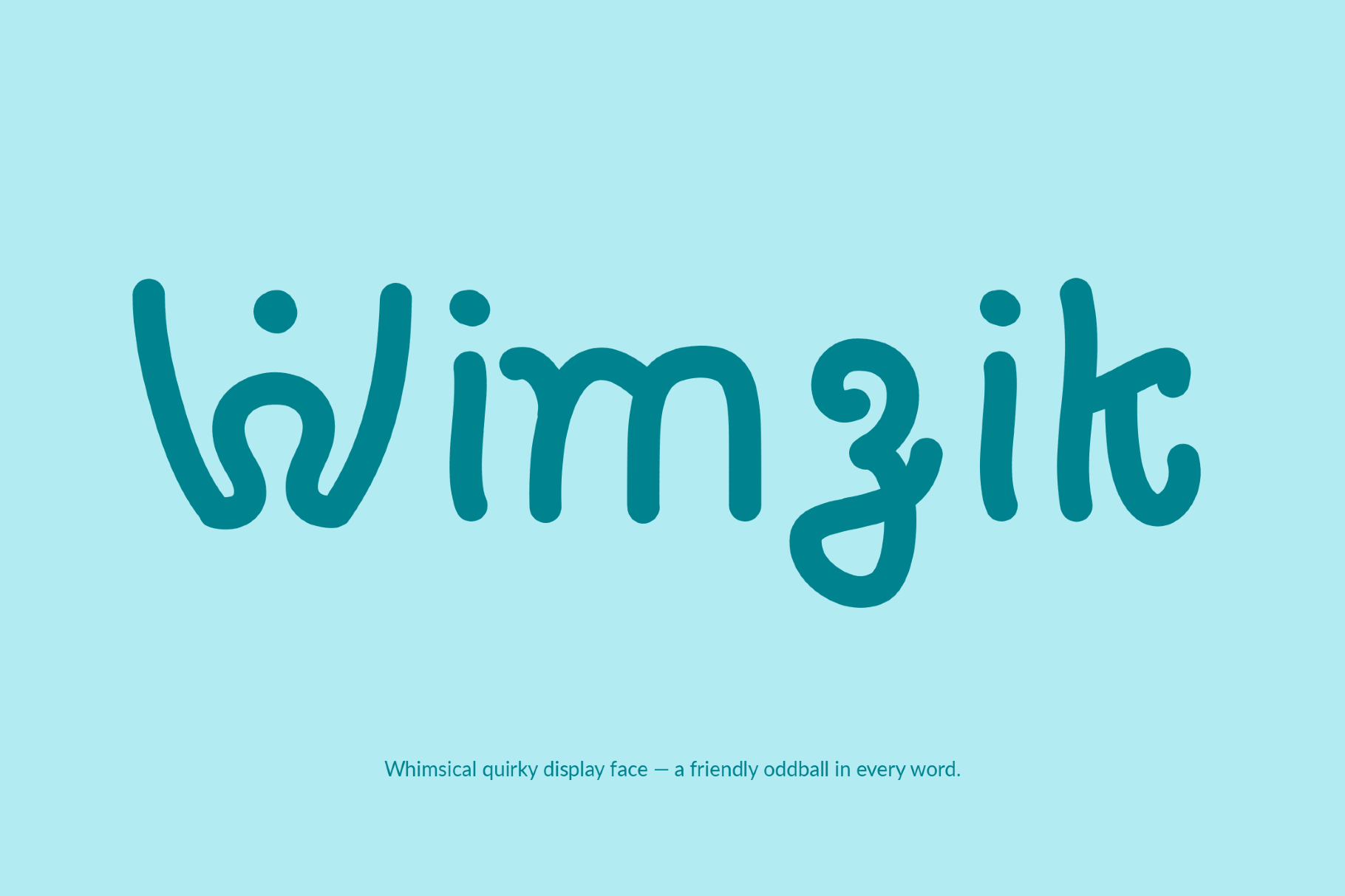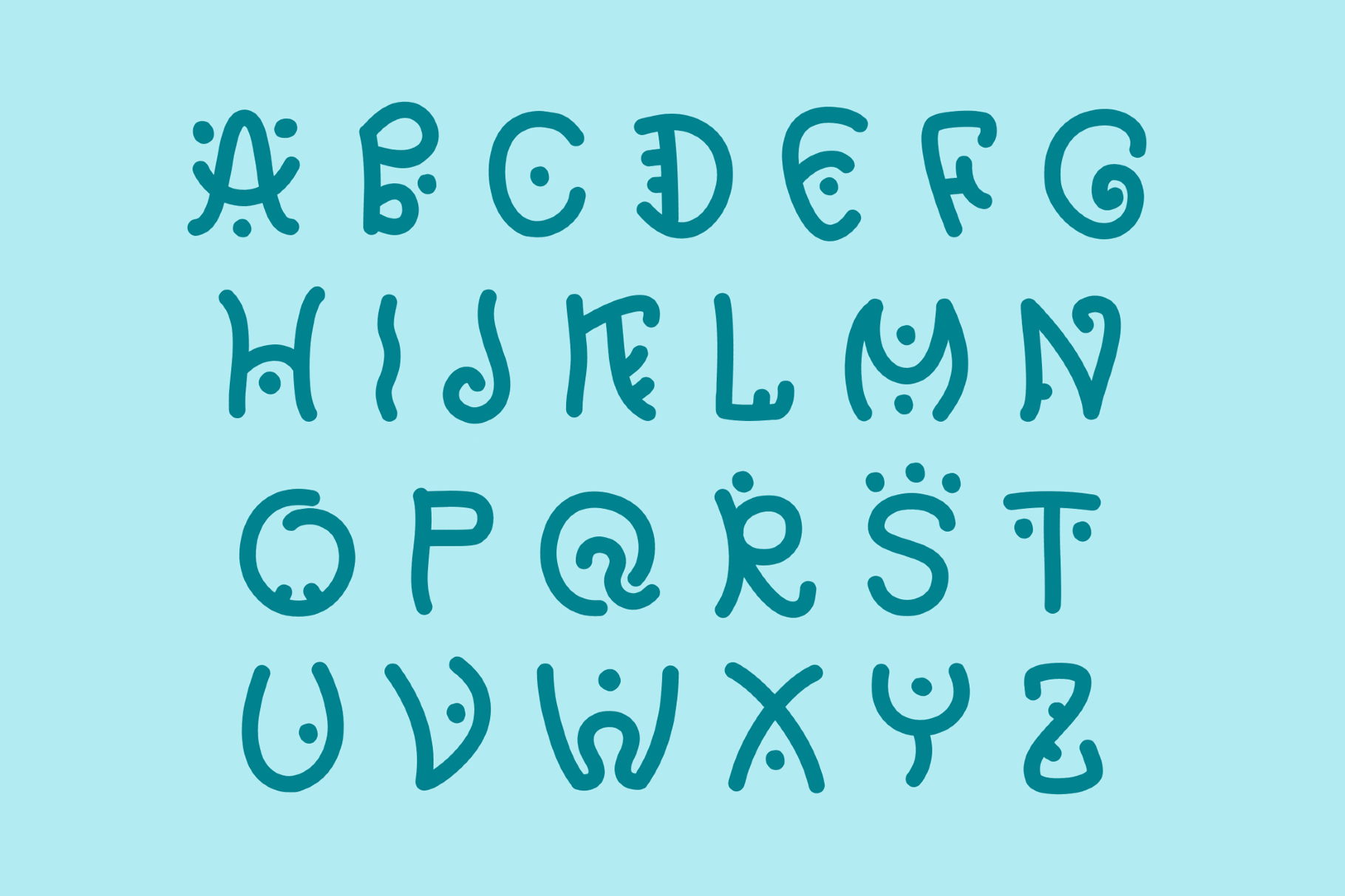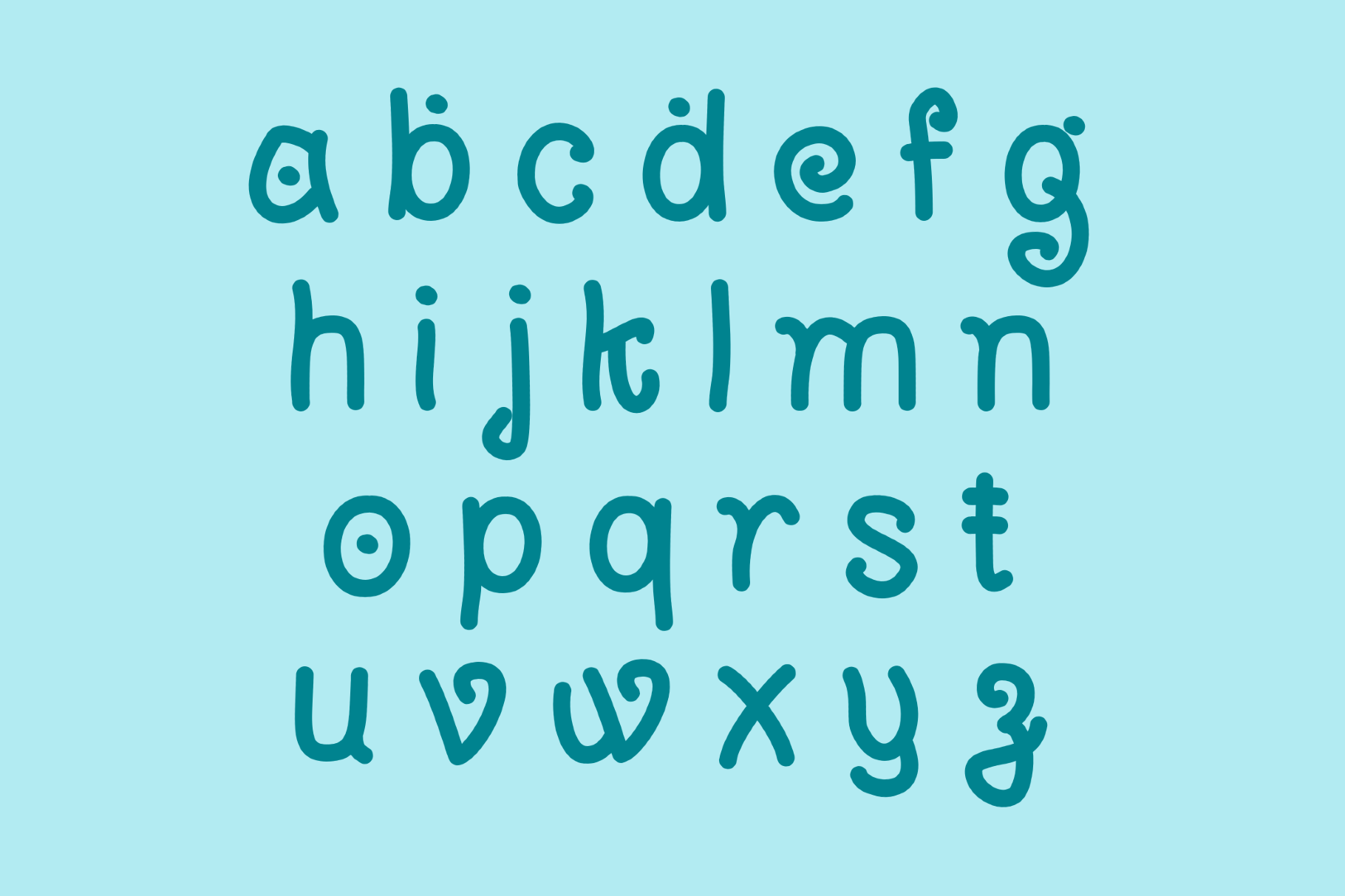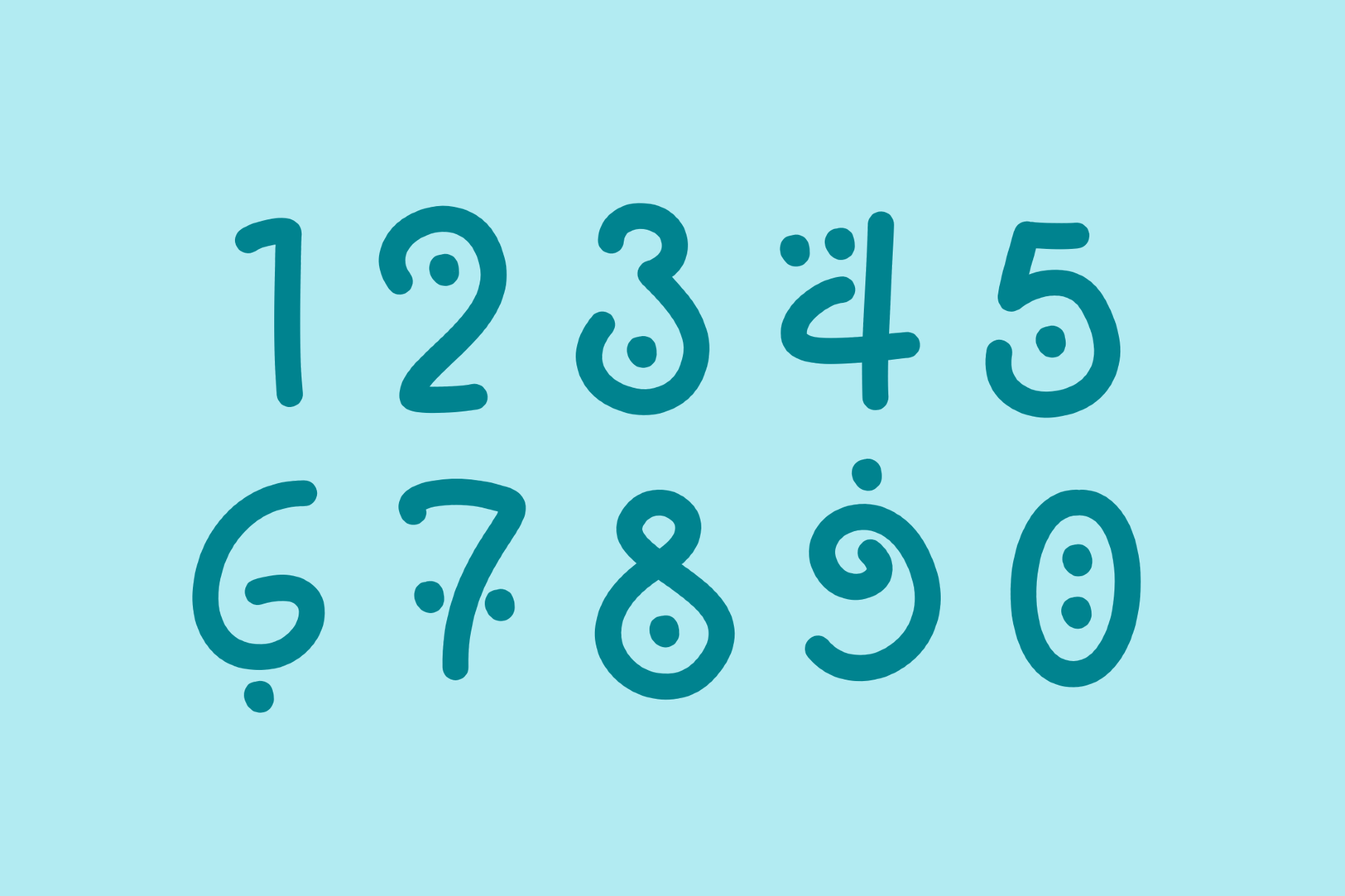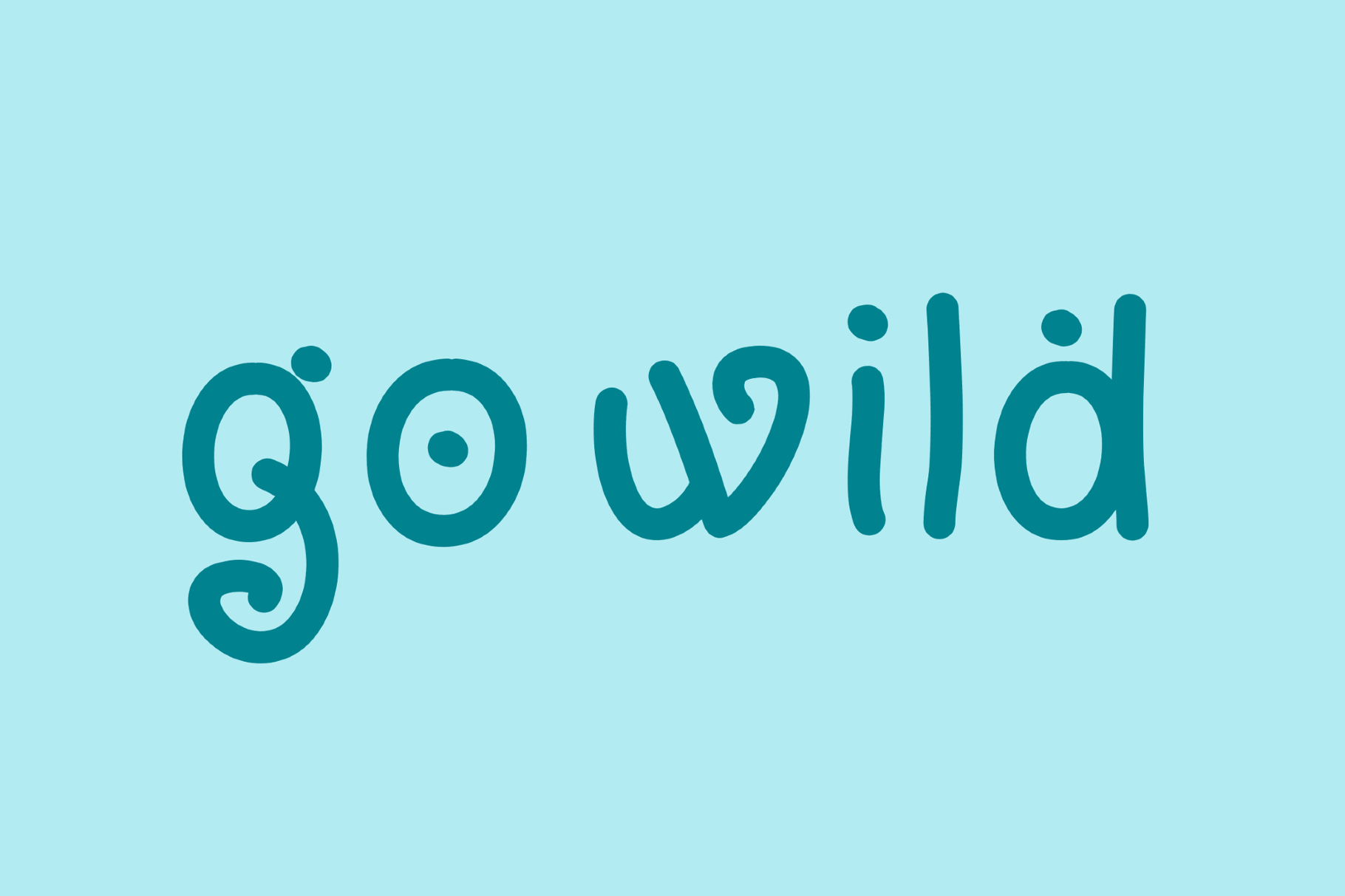
Wimzik - Funny Kids Font
Wimzik
Wimzik is a playful handwritten type with rounded strokes and a loose sing-song rhythm. It recalls children’s storybooks, doodled greeting cardsand cheerful lettering from classroom posters. This funny font is perfect for toy packaging, book covers, party invites, playful logos, sticker sheets, café menus, and bright social graphics.